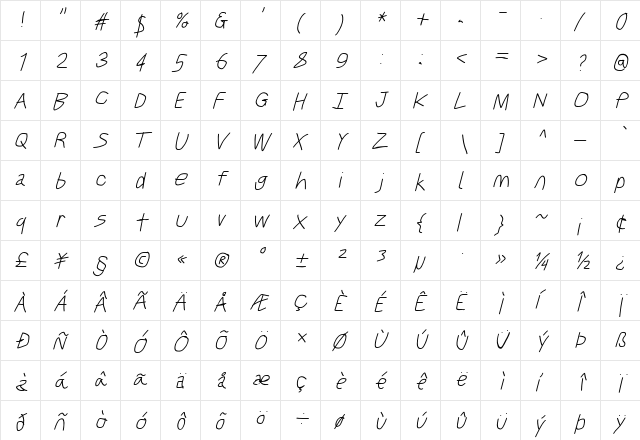
Just Breathe Obl5 Font Preview
Just Breathe Obl5
Just Breathe Obl5 Font Details
| Style | Obl5 |
| Foundry | Cannot Into Space Fonts |
Design Context for Just Breathe Typeface
Just Breathe takes a measured approach to typography — its balanced proportions and neutral character make it a reliable workhorse for both digital and print work.
Pro Tip: Use Just Breathe in both headline and body roles to test its range before committing to a single application.